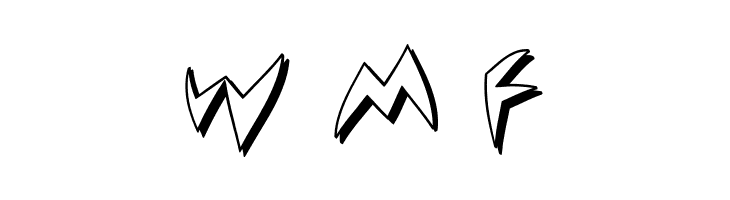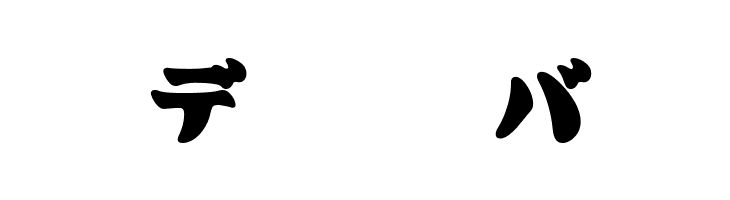
A modern, condensed sans-serif font with a clean and streamlined appearance.
A modern, condensed sans-serif font with a clean and professional appearance.
A modern, oblique, and condensed font with a sleek appearance.
A modern, oblique, and condensed font with consistent stroke thickness.
A quirky, icon-based decorative font with abstract, face-like glyphs.
A decorative and eclectic font with unique, artistic character designs.
An elegant script font with thin, flowing strokes and intricate loops.
A bold, geometric sans-serif font with a modern and professional appearance.
A playful, informal handwritten font with whimsical letterforms.
Cartoon couples form each character in a playful, hand-drawn style.
An ornate, decorative font with elaborate swashes and loops.
An intricate and decorative font with ornate, calligraphic elements.
A bold, decorative font with intricate and artistic strokes.
A bold, geometric font with sharp angles and a futuristic design.
A bold, playful handwritten font with rounded, irregular characters.
A bold, italic font with dynamic curves and a striking presence.
A playful, bold font with a shadow effect and hand-drawn style.
An elegant serif font with a blend of classic and modern elements, featuring unique curves and flourishes.
A chaotic, decorative font with jagged edges and star-like bursts.
A bold, jagged font with a distressed, graffiti-like style.
A display font made up of assorted decorative cross symbols.
A whimsical, hand-drawn font with irregular, dynamic strokes.
A bold, angular font with a graffiti-inspired, dynamic style.
A playful, decorative font featuring stick figures interacting with bold, angular letters.
A narrative, woodcut-style decorative font with each character as a detailed illustration.
A playful, rounded font with smooth curves and a friendly appearance.
A classic serif font with elegant curves and medium contrast, ideal for sophisticated design projects.
A futuristic, angular font with sharp edges and geometric shapes.
A futuristic, geometric font with bold, rounded shapes and consistent stroke width.
A bold, geometric font with a futuristic, digital aesthetic.